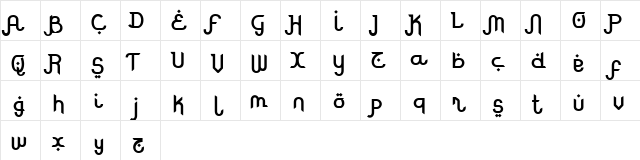
| Style | Rodja Bold Alt End |
| Foundry | Mikrojihad |
| Designer | Mikrojihad |
Design Context for Rodja Bold Alt End Typeface
Rodja Bold Alt End is a composed and adaptable typeface that performs quietly and consistently across a wide range of design contexts. Its bold stroke weight gives it real presence on the page.